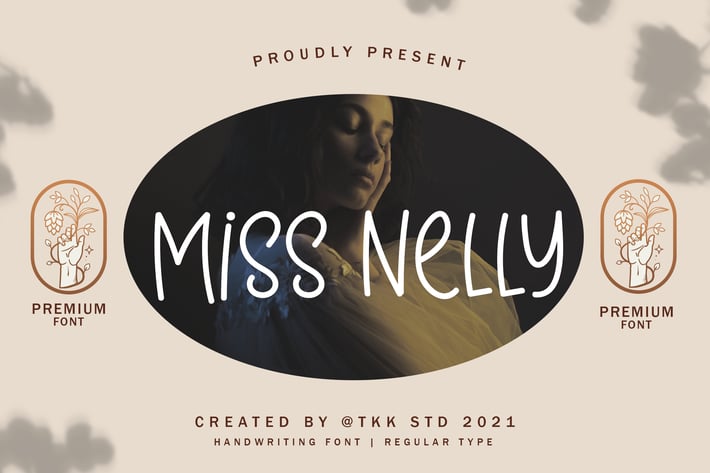
Miss Nelly - Girly handwriting font
Miss Nelly – A Stylish Handwritten Font with Elegant Whimsy
Miss Nelly is a high-quality, modern handwritten font that blends casual grace with signature charm. With its flowing curves, natural slant, and clean character structure, it brings a romantic, personal touch to your design projects. Whether you're branding, blogging, or crafting heartfelt messages, Miss Nelly exudes effortless elegance and handwritten sophistication.
Miss Nelly shines on wedding invitations, beauty packaging, logos, Instagram quotes, and personal branding. Its gently looping characters and soft strokes give off a friendly, confident vibe, making it a favorite for anyone looking to create refined, yet approachable designs.
Why Choose Miss Nelly?
Modern Handwritten Style – Clean yet decorative letterforms
Romantic & Feminine Feel – Perfect for weddings and heartfelt designs
Natural Flow & Legibility – Reads well across all media
Great for Branding & Social Media – Adds personality to every post
Beautifully Balanced – Lightweight elegance that doesn’t overpower
Perfect For :
Beauty and fashion brands
Feminine logos and name cards
Personal blogs and quotes
Wedding stationery
Boutique packaging
Let Your Words Speak Beautifully with Miss Nelly
Add charm, romance, and refinement to your visuals with Miss Nelly, your go-to font for elevated handwriting elegance. A must-have for creators who want their designs to feel personal, poetic, and polished.